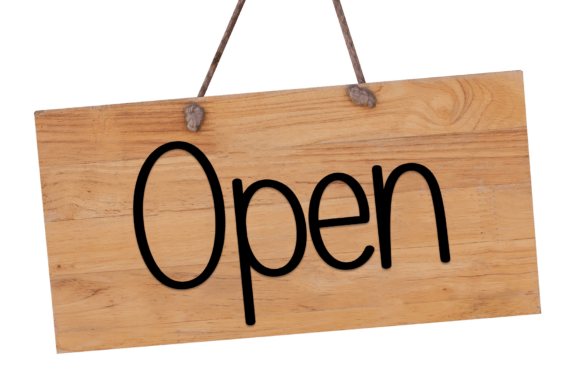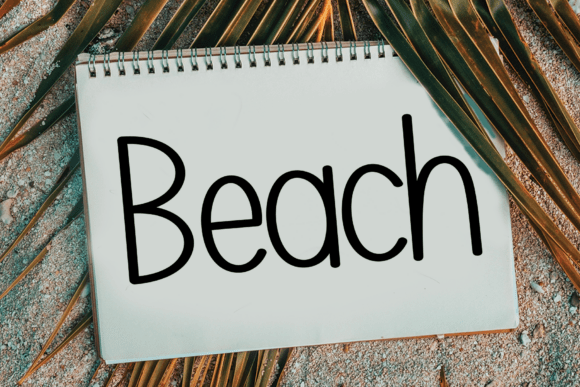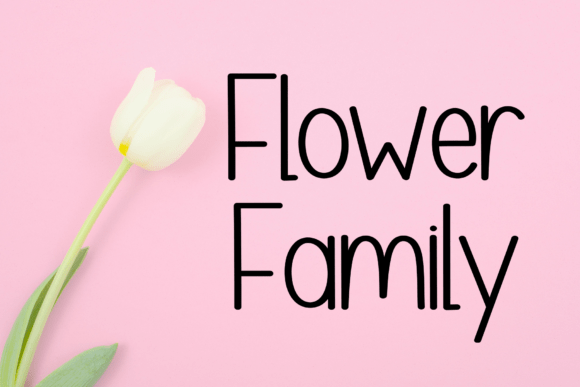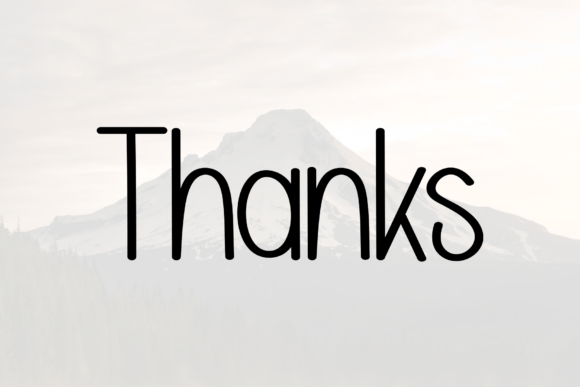
Discovering the Perfect Trail: Hiking Newyear Font
As a designer, there’s nothing quite like the thrill of finding the perfect font for a project. It’s like stumbling upon a hidden waterfall on a solo hike – the moment when everything comes together and your creative vision is crystal clear. For me, that moment arrived when I discovered the Hiking Newyear Font. This casual, handwritten sans-serif font is more than just a pretty face – it’s a tool for crafting authentic, approachable designs that connect with your audience.
Whether you’re working on a journaling project or creating branding for an outdoor enthusiast, the Hiking Newyear Font brings a sense of warmth and simplicity to your designs. Its smooth strokes and clean curves make it perfect for adding a personal touch to your work. As a designer, having access to a versatile font like Hiking Newyear Font can be a game-changer, allowing you to tap into the hearts of your audience and create truly memorable designs.
- Font Family: Hiking New Year, a unique and modern script font designed to evoke the feeling of adventure and exploration.
- Size: The font comes in 5 different weights, ranging from Light to Extra Bold, allowing for a wide range of design applications.
- Unique Characteristics: The font features a unique blend of handwritten and digital elements, with subtle texture and imperfections that add to its charm.
Hiking Newyear Font Review
Overall, I found “Hiking Newyear Font” to be a refreshing take on the traditional font style. It’s ✨ clean, ✨ modern, and ✨ highly legible. The font’s unique blend of elegance and ruggedness makes it perfect for outdoor-themed projects or any design that requires a sense of adventure.
One of the standout features of this font is its versatility. It can be used for both headlines and body text without looking out of place. The font’s weight and style options make it easy to create visually appealing hierarchies and add depth to your design.
- ⚠️ Limited character set: While the font is available in a decent range of languages, it’s not comprehensive, which may be a concern for projects that require extensive international support.
- ⚠️ Not ideal for small text sizes: At very small font sizes, the font can become difficult to read, especially for users with visual impairments.
- ⚠️ Some glyphs may require tweaking: A few characters, such as the ‘g’ and ‘y’, may require manual adjustments to achieve optimal results.
Despite its limitations, “Hiking Newyear Font” is a solid choice for designers looking to add a touch of adventure to their projects. Its clean lines, modern feel, and high legibility make it a great option for a wide range of applications. With a little tweaking and consideration of its limitations, this font can elevate your designs to new heights.
Some popular use cases for Hiking New Year Font include:
- Designing outdoor-themed posters and flyers.
- Creating winter-themed invitations and greeting cards.
- Adding a rustic touch to travel brochures and websites.
For best results, use Hiking New Year Font in conjunction with earthy